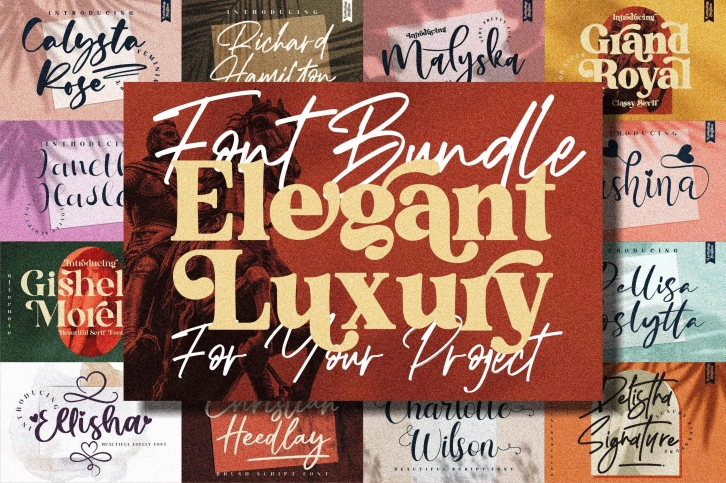
LUXURY AND ELEGANT BUNDLE is a gorgeous font that was realeased on December 12, 2020. The font can be used in many style contexts and design environments. Perfect for invitations, magazines, websites, logos, and more! It was designed by Letterena Studios and the file size is 10.12 MB. Thanks for checking out this font!